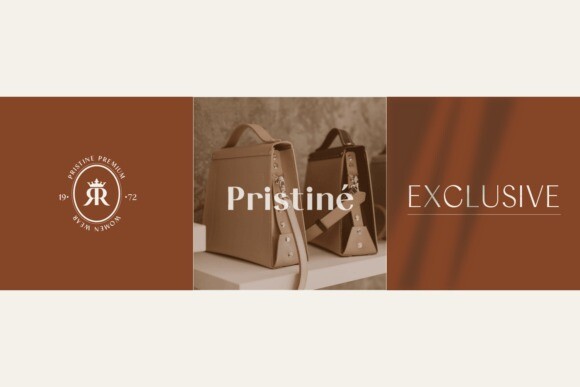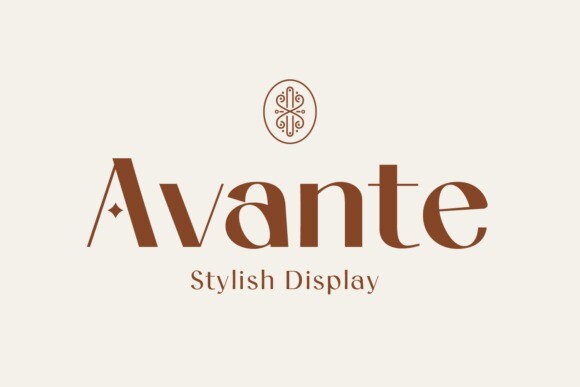
Avante Typeface
Avante Typeface is a sleek, stylish sans-serif font that brings a modern, luxurious, and feminine vibe to any design, Avante comes in four unique styles: Extra Light, Regular, Bold, and Italic, giving you options to play with in different high-end design.
Avante is all about balance—combining smooth lines with soft curves that make it perfect for branding, editorial layouts, and even high-end product displays.
Whether you’re working on a chic logo, a classy magazine layout, or elegant packaging, Avante brings a polished yet warm touch to elevate your projects.